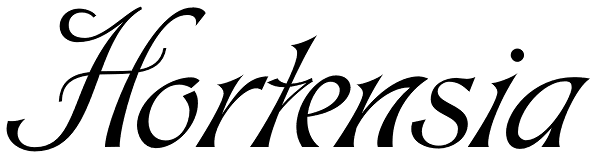
Hortensia
Hortensia, designed around 1900 by Emil Gursch for his own Berlin foundry, is a typeface most expressive of the post-Victorian aesthetic that was all the rage in both Europe and America during the second half of the 19th century and up until the...